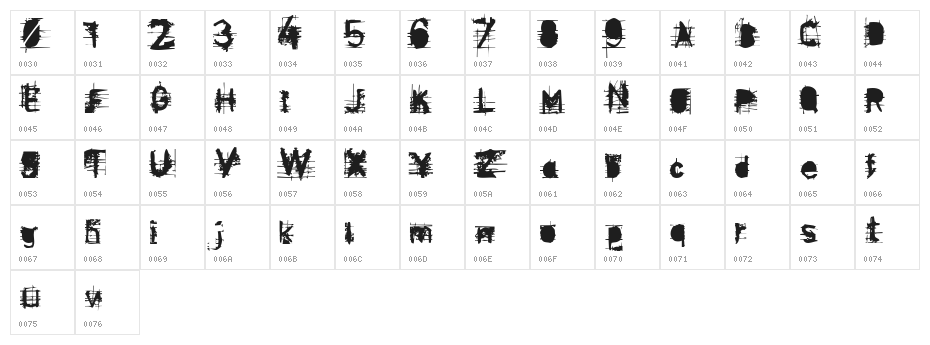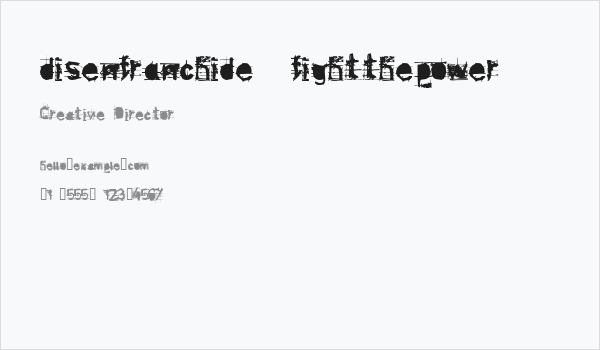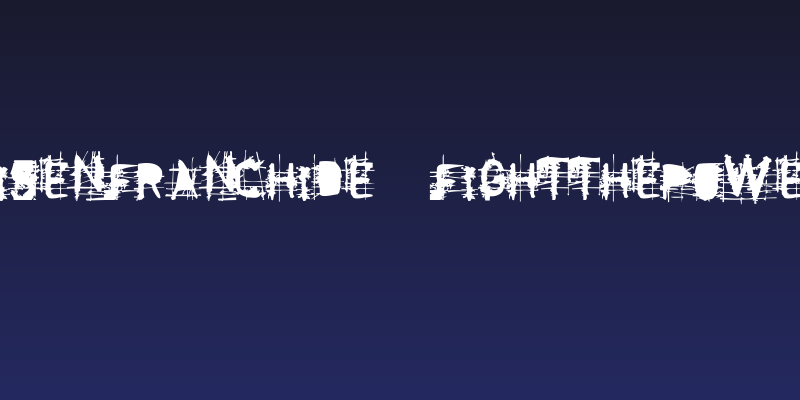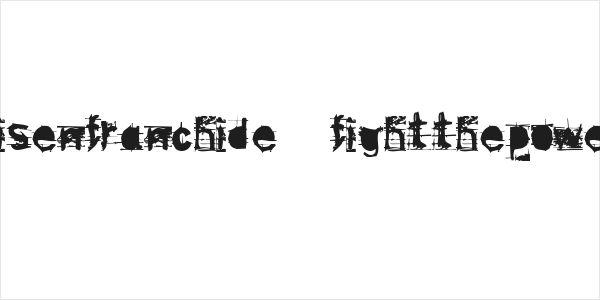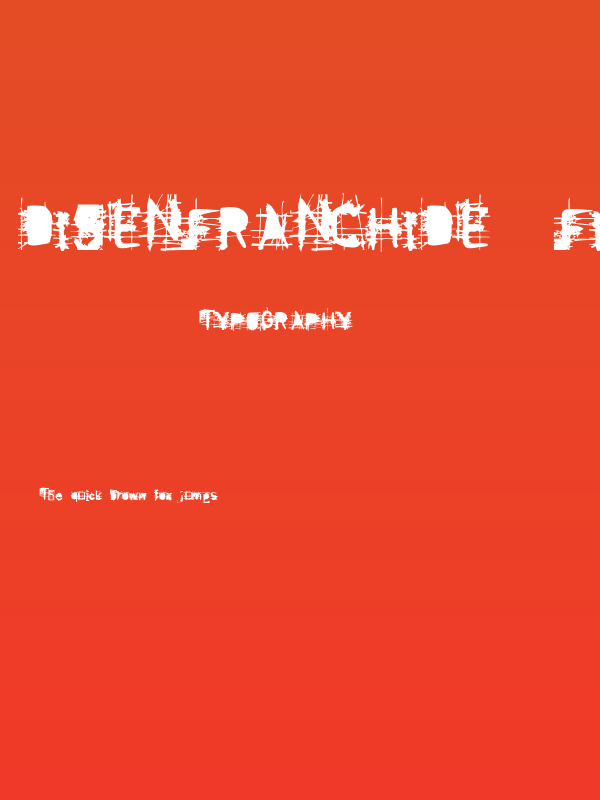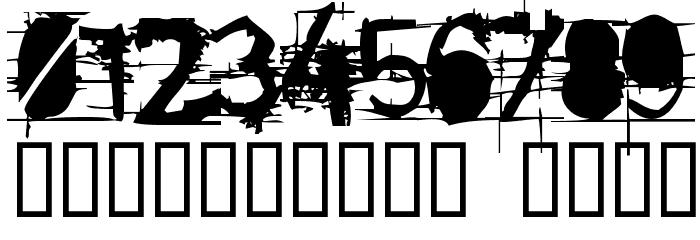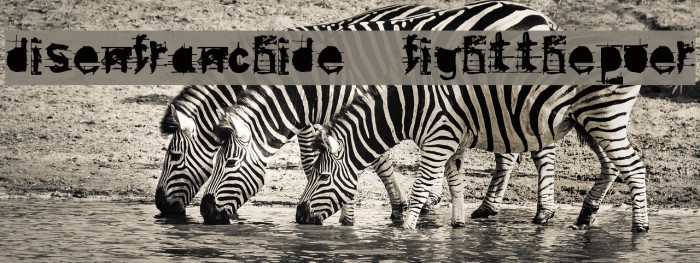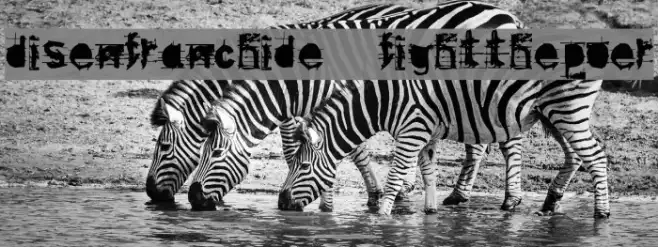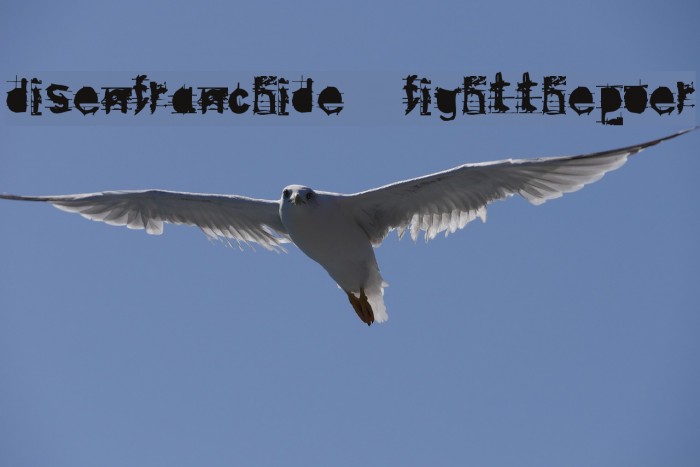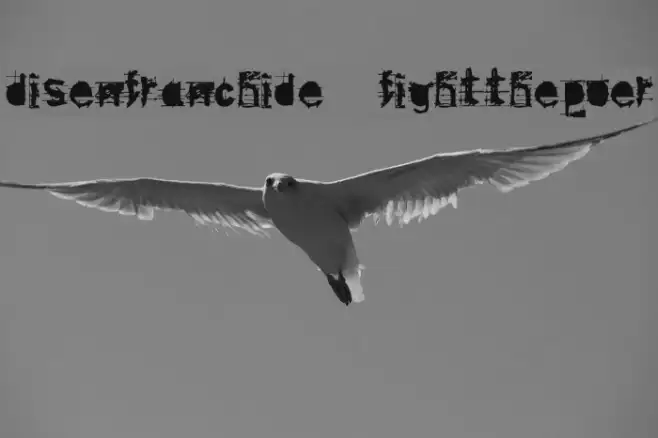
disenfranchide fightthepower Font
disenfranchide fightthepower Description
This font features a highly distressed and chaotic design, characterized by jagged edges and an overall grunge aesthetic. The letters appear as if they are constructed from rough, uneven strokes, giving a sense of rebellion and raw energy. The uppercase and lowercase letters maintain this rugged style, with each character uniquely distorted. Numbers and special characters follow the same theme, adding to the font's aggressive and unconventional appearance. This font is ideal for projects that aim to convey a sense of defiance or anarchy, making it suitable for punk rock album covers, protest posters, or any design that requires a bold, non-conformist statement.
| Overall Style | Grunge, Rebellious |
| Use Case | Logos, Posters, Album Covers |
| Proposed Projects | Ideal for punk rock album covers, protest posters, edgy branding, and rebellious art projects. |